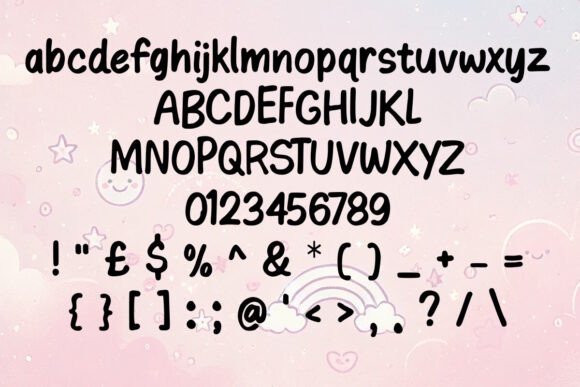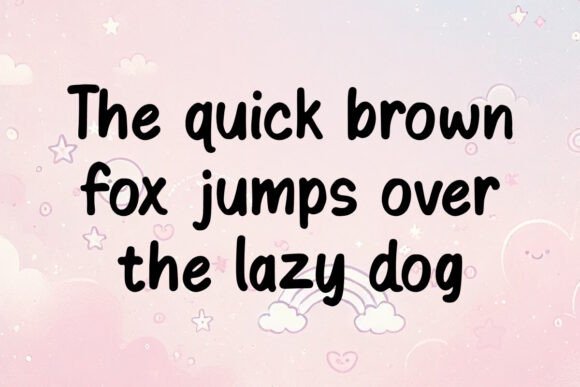
Discover the Joy of Giggleberry Font: Adding Warmth and Whimsy to Your Designs
I’ll never forget the time I was working on a project for a children’s birthday party, and I just couldn’t find the right font to capture the playful and fun vibe I was going for. The client wanted something that would make kids (and parents!) smile, but everything I tried seemed either too boring or too over-the-top. That’s when I stumbled upon Giggleberry Font, and it was like a breath of fresh air. In this article, I’ll share my love for this delightful font, its features, and how you can make the most of it in your designs.
A Personal Review of Giggleberry Font
What I Love About Giggleberry ✨
- 💕 The friendly, approachable feel that makes it perfect for designs that need a personal touch.
- ✅ The rounded strokes and smooth curves create a sense of warmth and approachability.
- 🎉 It’s incredibly versatile, suitable for a wide range of projects, from kids’ party invites to social media graphics.
- 👍 Easy to read, even in smaller sizes, making it a great choice for body text or captions.
- ⚠️ While Giggleberry is a beautiful font, it might not be the best choice for very formal or professional projects. It’s playful, so it might not fit the tone you’re going for.
- 😐 Some users might find the font a bit too casual or childish for certain applications.
Giggleberry Font comes with some lovely OpenType features, including stylistic alternates and glyphs that can add even more personality to your text. For example, you can use:
- Swashes to add a decorative touch to your headings.
- Stylistic sets to change the look of your text subtly.
- Glyphs to insert fun and playful elements into your designs.
The Story Behind Giggleberry Font
Giggleberry Font was designed with one goal in mind: to bring a smile to people’s faces. The designer, inspired by childhood memories of laughter and play, crafted a font that embodies warmth, friendliness, and a dash of whimsy. Whether you’re working on a project for kids or just want to add some fun to your designs, Giggleberry is the perfect choice.
| Font Name | Giggleberry Font |
| Author | Donna and D.A.V.E |
Q: Is Giggleberry suitable for professional projects?
A: While Giggleberry is playful, it can be used in professional projects where a friendly, approachable tone is desired. However, it might not be the best fit for very formal or corporate designs.
Q: Does Giggleberry support OpenType features?
A: Yes, Giggleberry comes with OpenType features, including stylistic alternates and glyphs, allowing you to customize your text and add more personality to your designs.